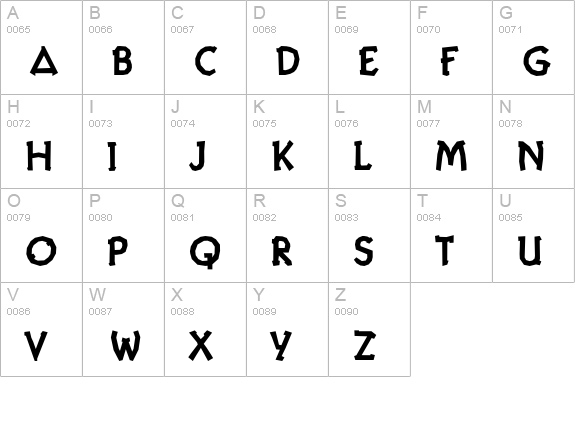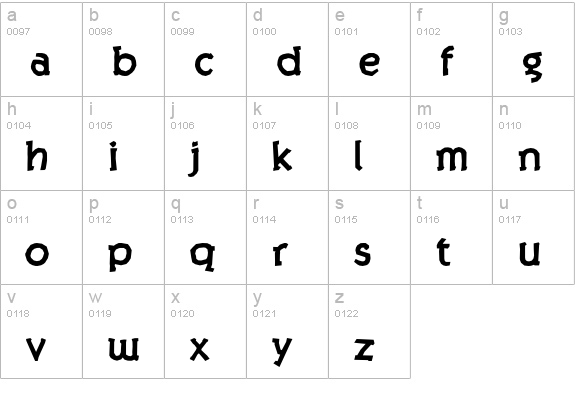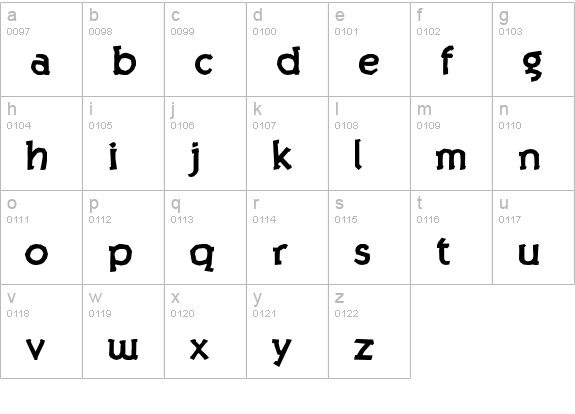
Twig Bold is a strong, high-contrast variant in the Twig typeface family \xE2\x80\x94 well suited to headlines, attention-grabbing titles, and strong calls-to-action.
Introducing Twig Bold, a visually stunning and captivating font that is sure to make a bold statement in any design project. With its sleek and modern design, Twig Bold is perfect for creating eye-catching headlines, stylish logos, and striking advertisements. This font exudes confidence and sophistication, with its strong, thick lines and unique letterforms. Each character is meticulously crafted to ensure maximum impact and legibility, making it ideal for both print and digital media. But what sets Twig Bold apart is not just its exceptional design, but also the fact that it is completely free to download. Yes, you read that right - this incredible font is freely available for you to download at FontsMarket.com. Now, you can elevate your designs without breaking the bank. Whether you're a professional designer looking to add a touch of elegance to your work or a creative enthusiast experimenting with typography, Twig Bold is the perfect choice. Its versatility allows it to be used in a variety of design projects, from posters and brochures to websites and social media graphics. Don't miss out on this opportunity to enhance your designs with the striking beauty of Twig Bold. Download it for free at FontsMarket.com and unleash your creativity today.